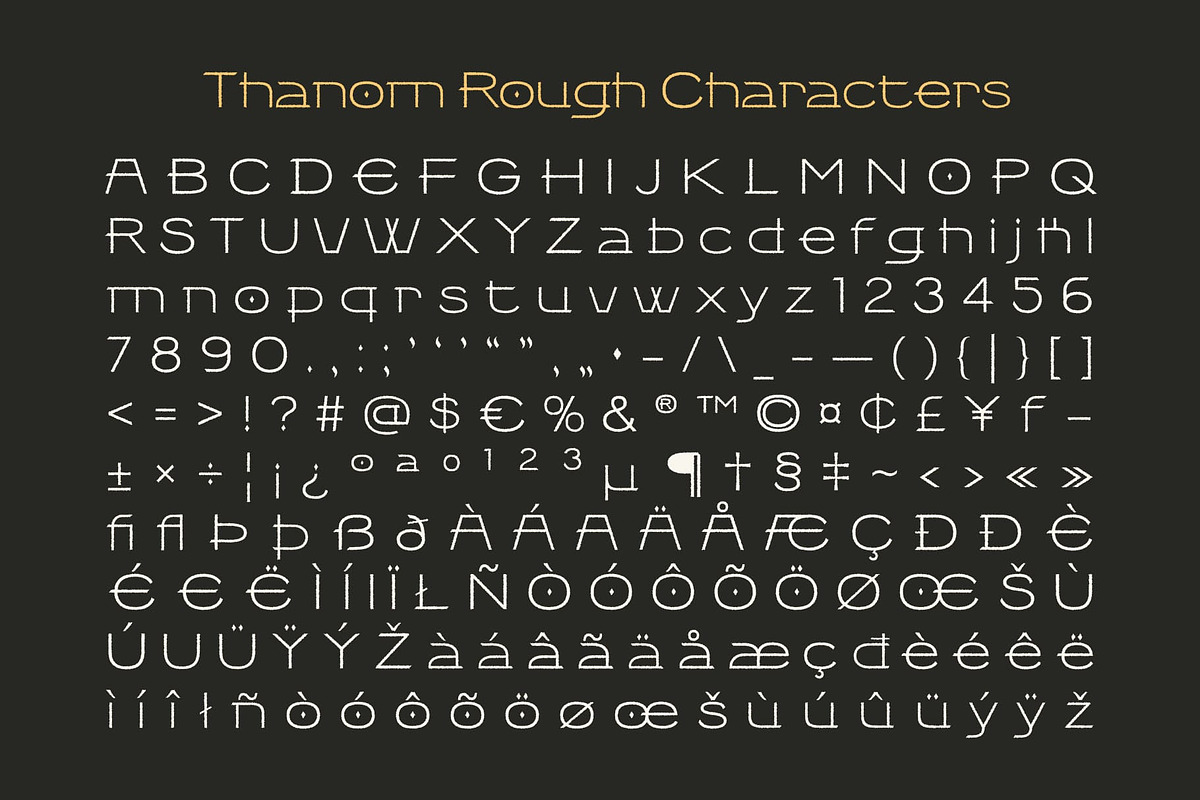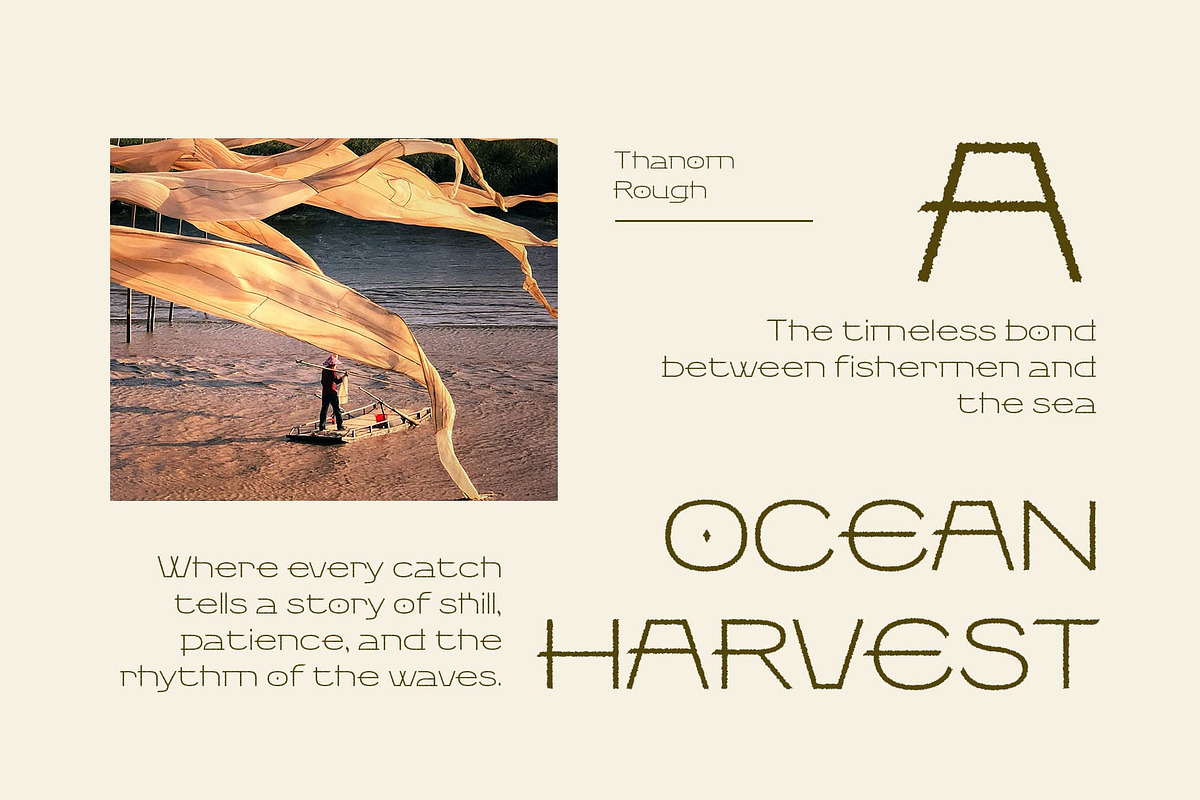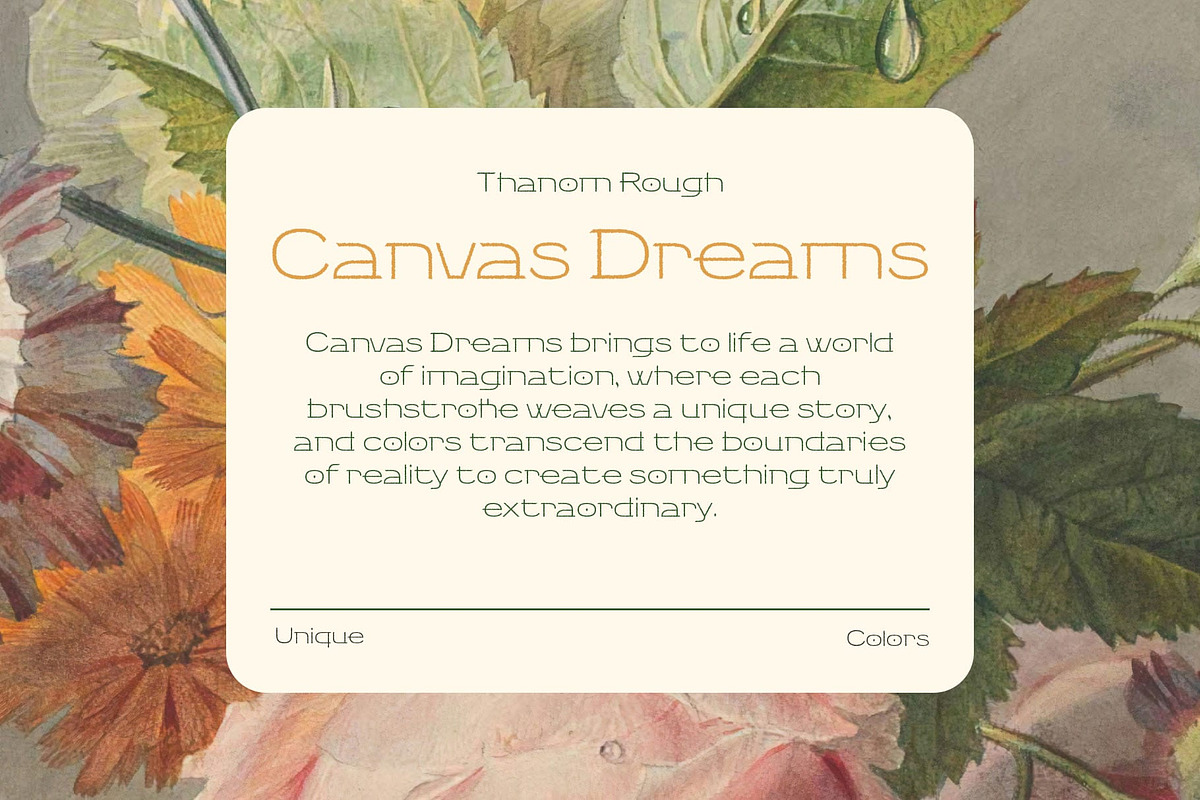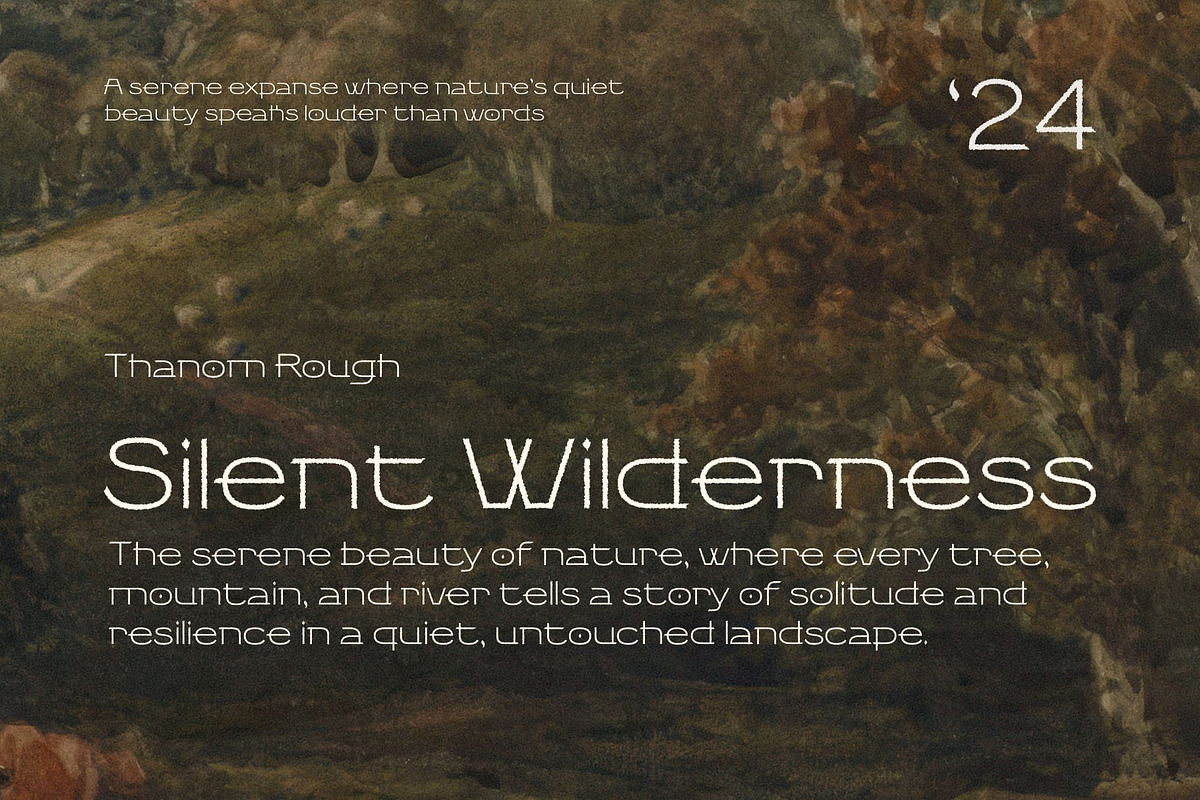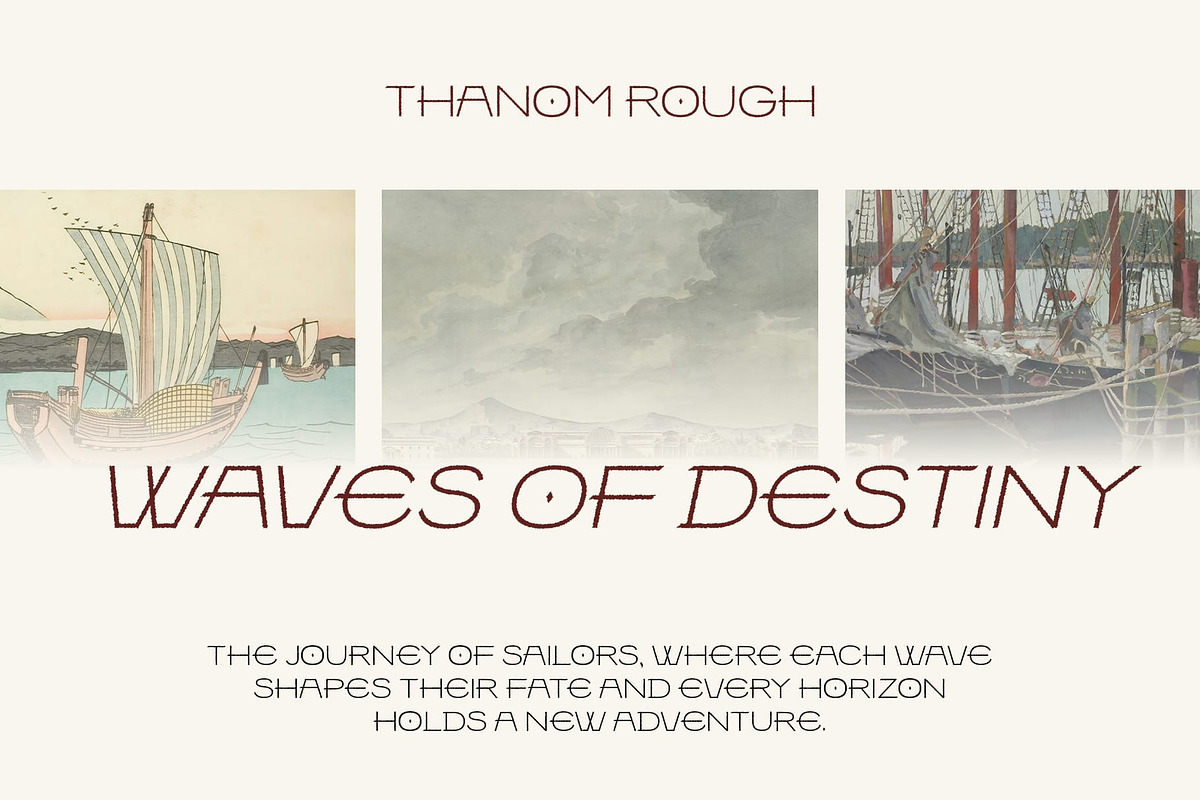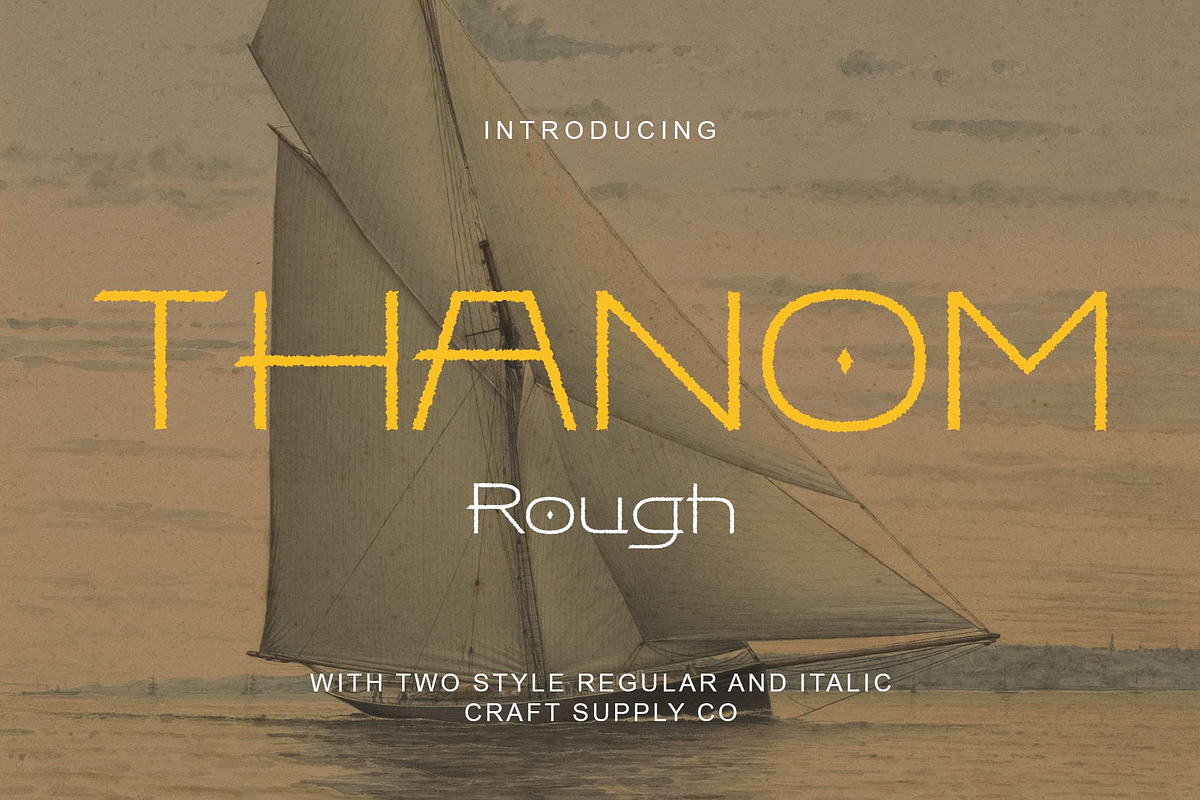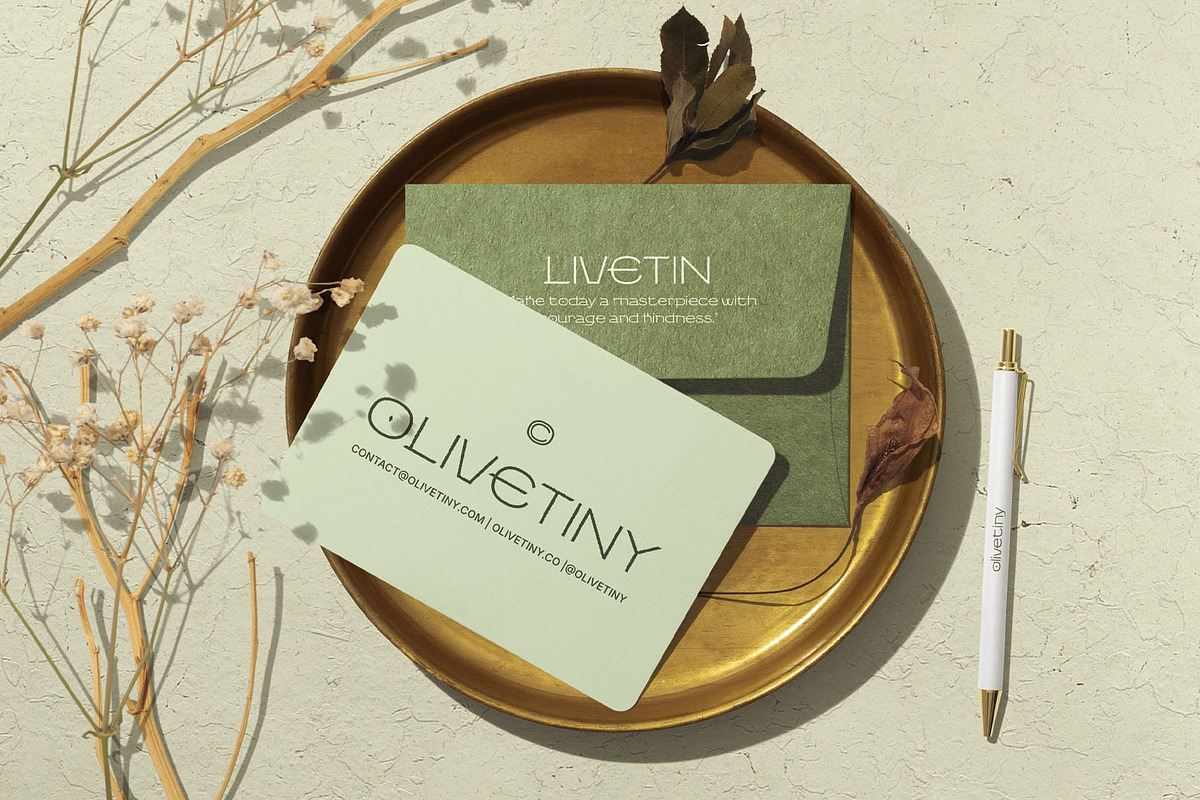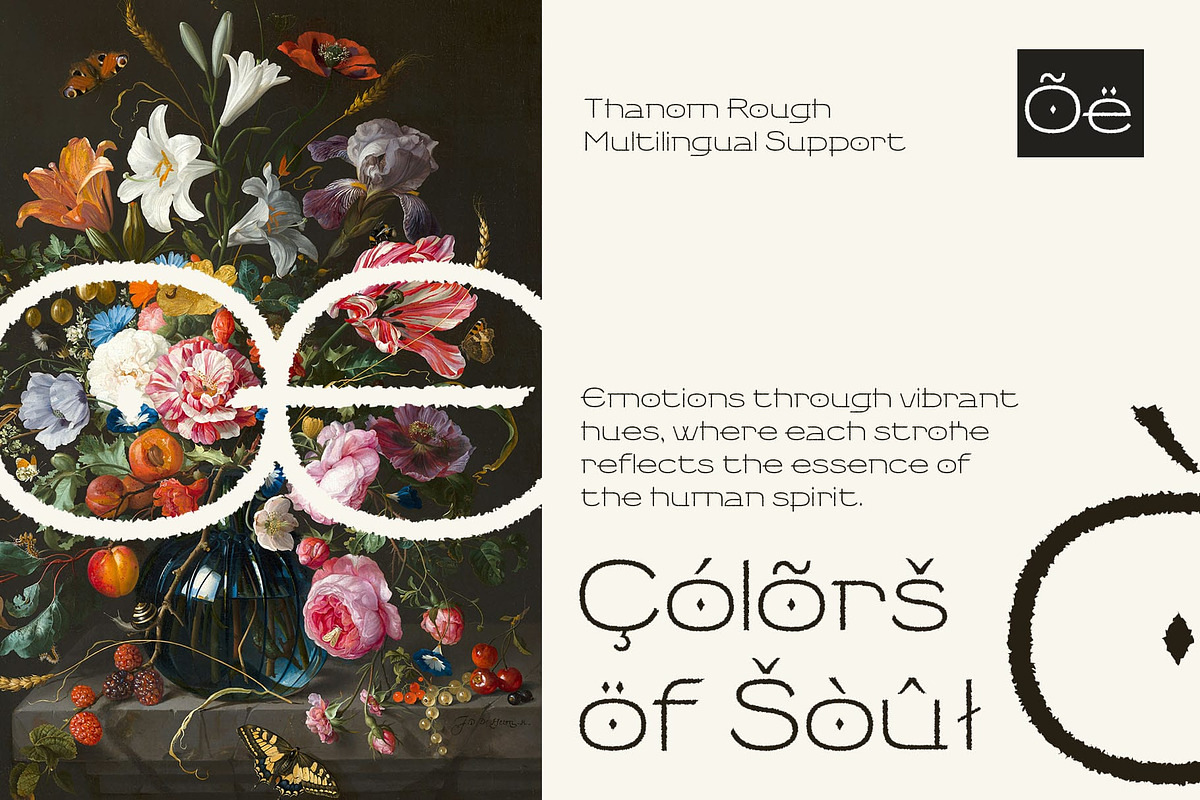
Thanom Rough
Thanom Rough Font: Futuristic Innovation with a Raw Edge
A Cutting-Edge Typeface with Industrial Appeal Thanom Rough is a modern display font that seamlessly blends sleek, futuristic design with a rugged, raw texture. Its clean, geometric shapes exude innovation and technological sophistication, while the rough texture introduces an industrial, tactile feel, creating a visually dynamic and impactful typeface. The contrast between polished lines and raw edges makes Thanom Rough ideal for designs that need a bold and cutting-edge aesthetic with a touch of unrefined, gritty character.
A Bold Fusion of Innovation and Intensity This font is the perfect embodiment of forward-thinking style with an unpolished twist. The futuristic design evokes the spirit of innovation and progress, while the rough texture adds an element of ruggedness and intensity, offering a unique visual experience. Thanom Rough is ideal for projects that seek to communicate both advanced technology and a bold, industrial flair.
Perfect for Futuristic and Tech-Inspired Designs Thanom Rough is particularly well-suited for tech branding, futuristic posters, digital media, and any design project that demands a cutting-edge, innovative look with added intensity. Its bold presence makes it perfect for headlines, logos, and promotional materials that need to stand out with a modern and unique twist.